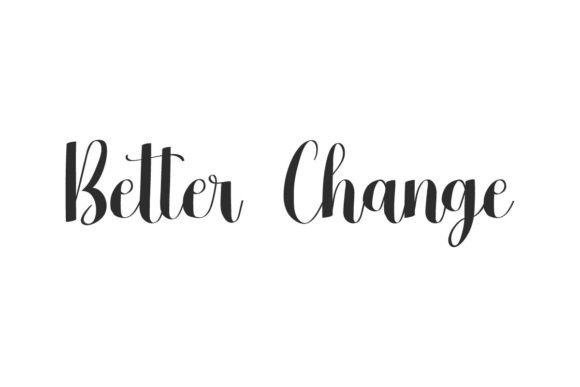
Discover Better Change Font, A Typographic Marvel That Emanates Creativity and Panache!
Immerse yourself in the world of Better Change, a script font that embodies originality and grace. Each letter is a stroke of calligraphy brilliance, meticulously crafted to exude elegance and charm. With Better Change, your words take on a life of their own, captivating your audience with their beauty and allure. Designed with finesse, every curve and stroke harmoniously blend, creating an aesthetic masterpiece that sets your designs apart.
At the heart of Better Change lies versatility. It adapts effortlessly to a myriad of creative endeavors, from digital designs to tangible masterpieces. Let it elevate your brochures, turning them into captivating works of art. It dances across covers, transforming them into enchanting invitations, and effortlessly adorns logos, bestowing them with a touch of sophistication. Whether you seek to create mesmerizing magazine catalogs, stylish packaging designs, or captivating websites, Better Change seamlessly weaves its magic, leaving an indelible impression on your audience.
Harness the power of Better Change and watch your creative visions come to life. Its beauty transcends time, making it an enduring choice for stationery and titles. Whether you're creating a heartfelt letter or designing a stunning website, Better Change adds a touch of refinement and elegance that captivates and inspires. Its versatility extends to digital realms, where it enhances apps and websites with its distinctive charm, leaving a lasting impression on users.
Elevate your creative projects with Better Change, the font that inspires and transforms. Its enchanting flow invites readers to embark on a visual journey, leaving them mesmerized by your designs. Experience the synergy of beauty and functionality as Better Change becomes an integral part of your creative toolkit. Embrace the versatility and originality that Better Change offers, and let your imagination soar to new heights. Embrace the change, embrace Better Change!